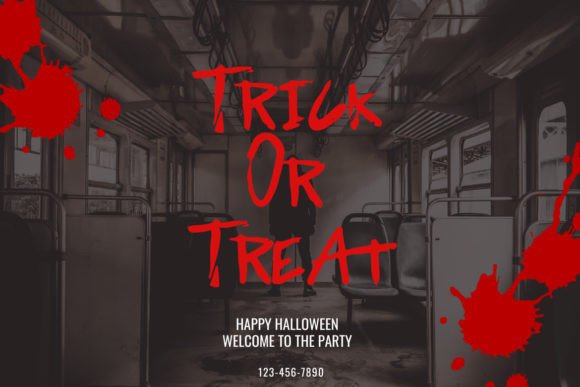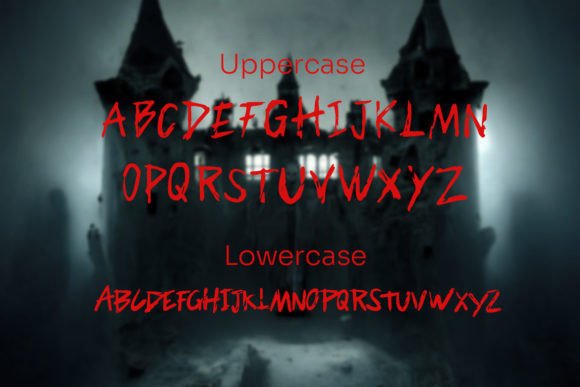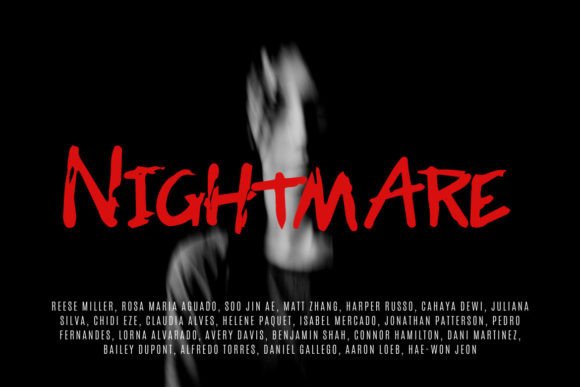
Introduction to Scarebrook Font
Scarebrook is a horror and commanding brush font that is perfect for adding a sinister and powerful touch to your designs.
Its bold, sharp edges and thick strokes give it a menacing look and feel, while its distressed texture creates a haunting atmosphere It’s ideal for creating intense and dramatic titles and headlines.